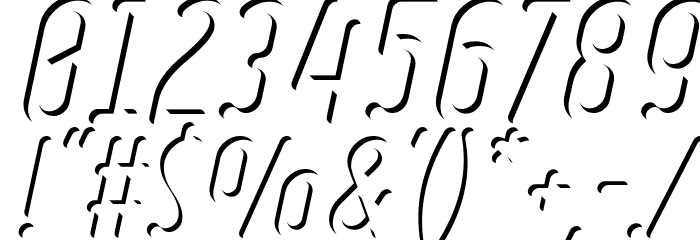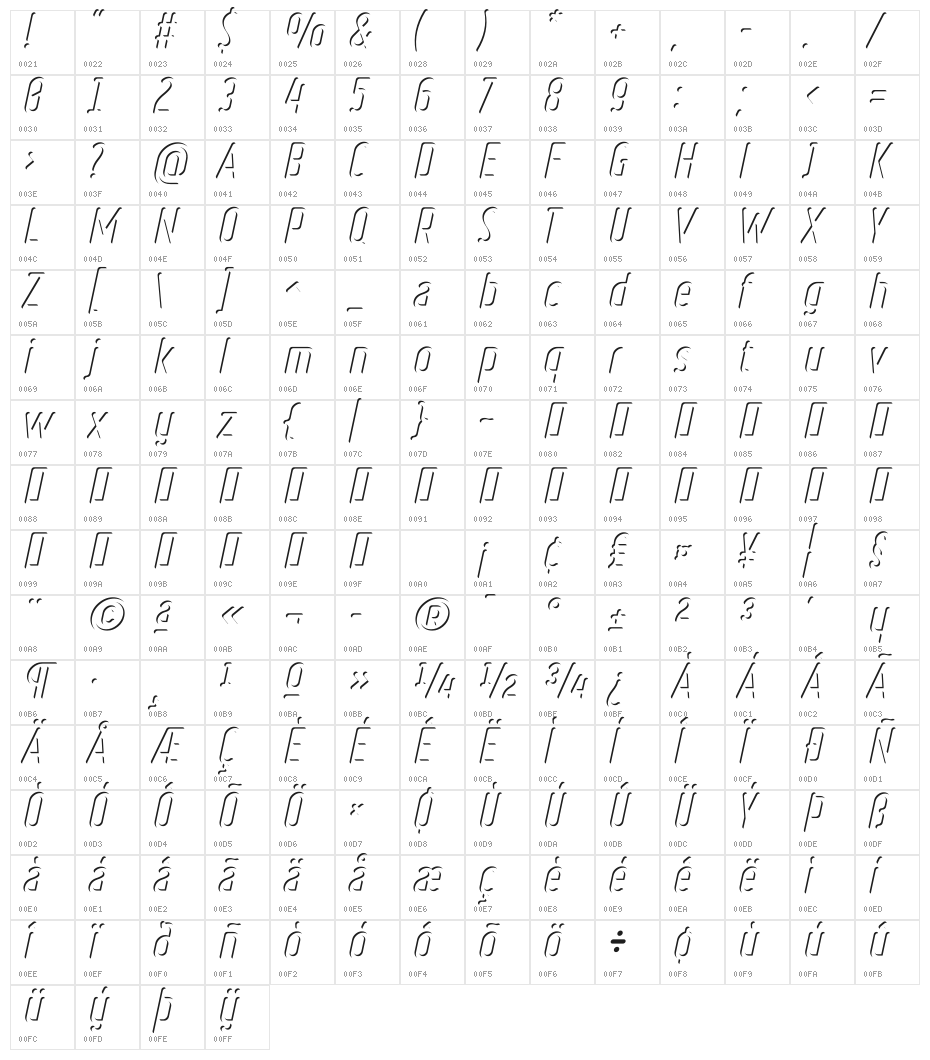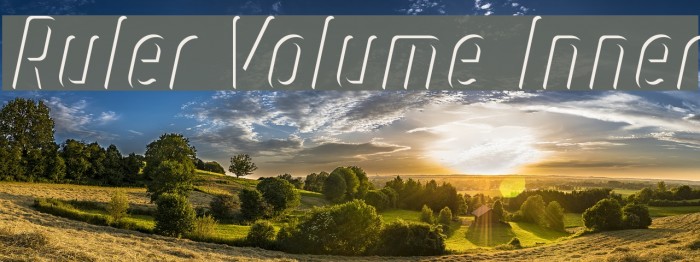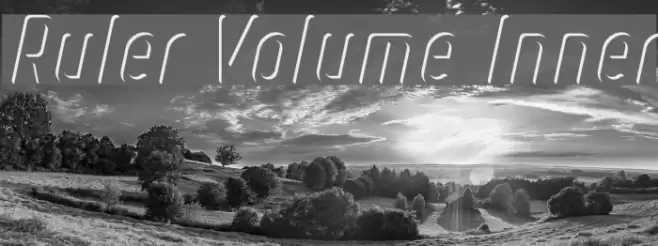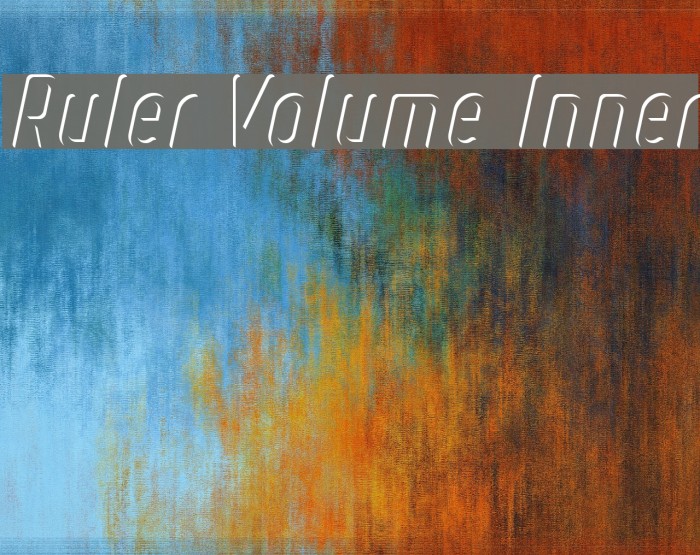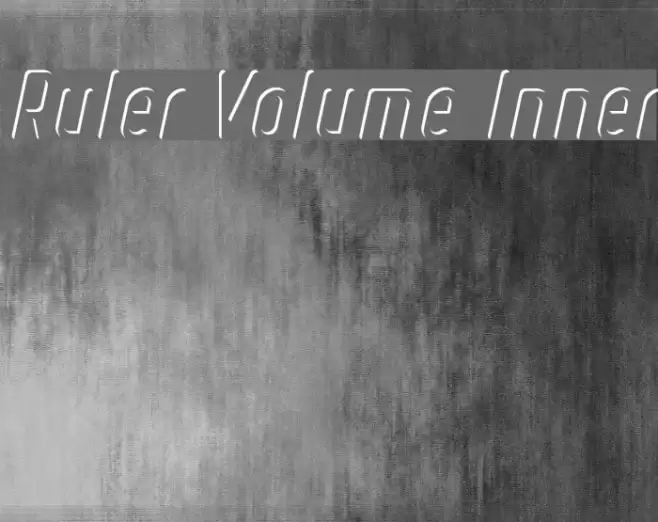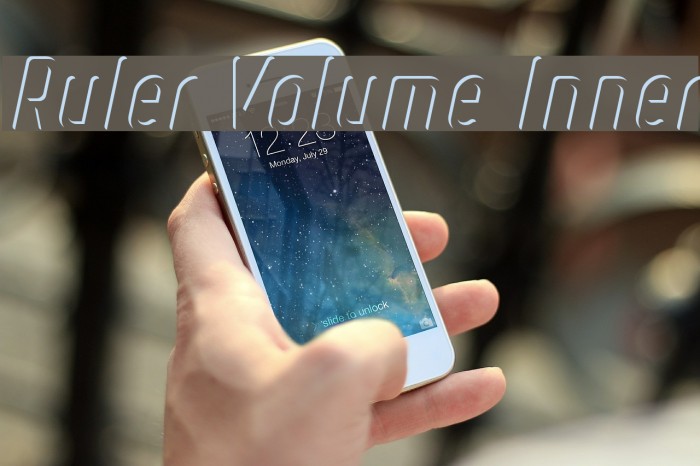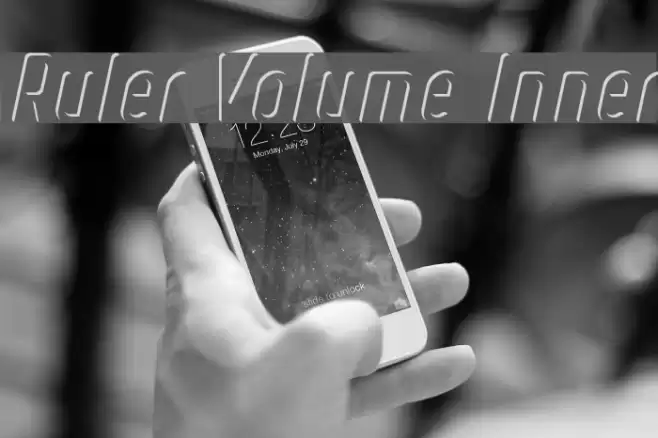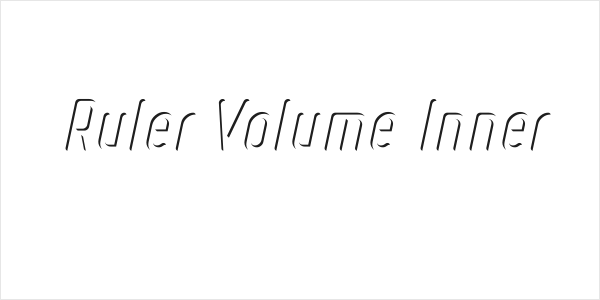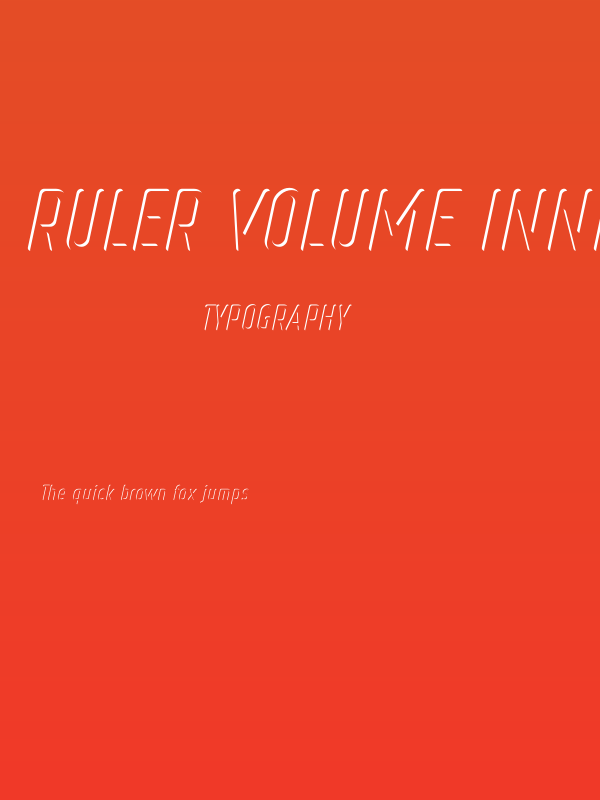
Ruler Volume Inner Font
Ruler Volume Inner Description
This font features a modern and sleek design with a unique stencil-like appearance. The characters are constructed with clean, sharp lines and distinct cutouts, giving it a futuristic and industrial feel. The uppercase and lowercase letters maintain a consistent style, with angular forms and a slight slant that adds dynamism. The numerals and special characters follow the same design principles, ensuring uniformity across all glyphs. This font's distinctive style makes it stand out, offering a bold and contemporary aesthetic that is both eye-catching and versatile.
| Proposed Projects | Ideal for branding, posters, and digital media where a modern and industrial look is desired. |